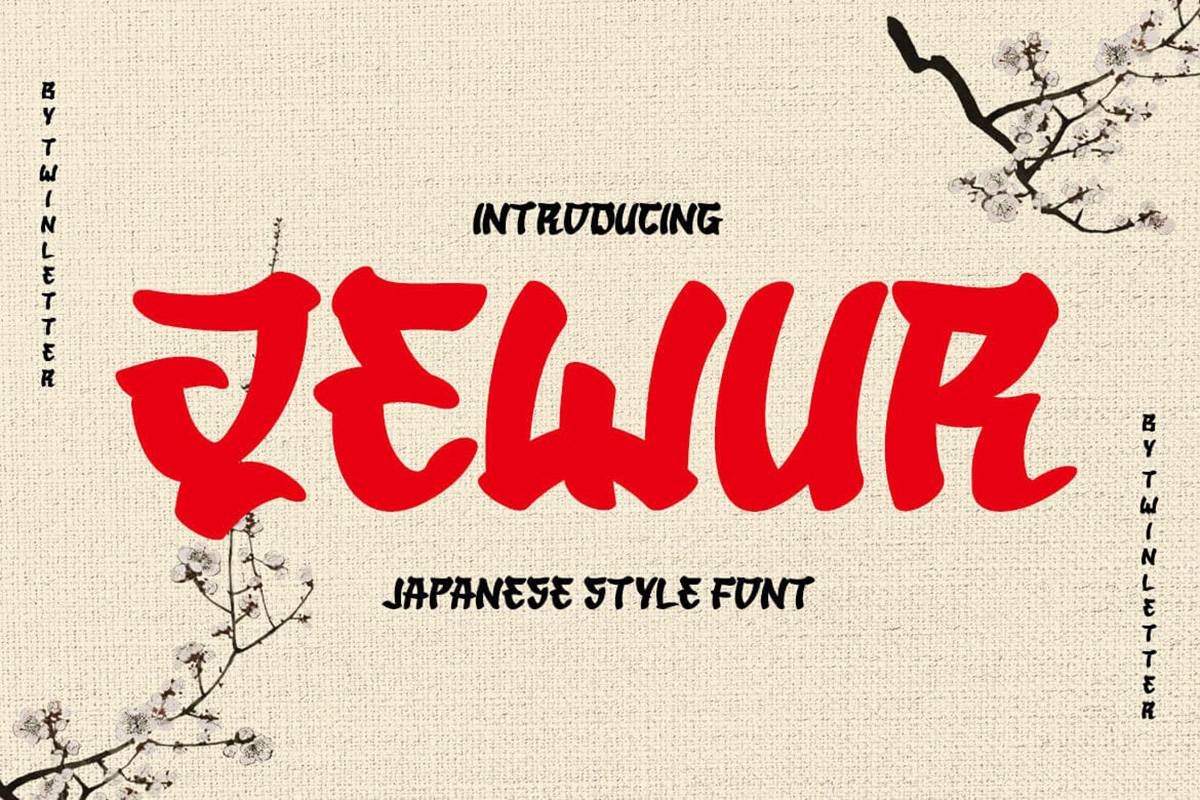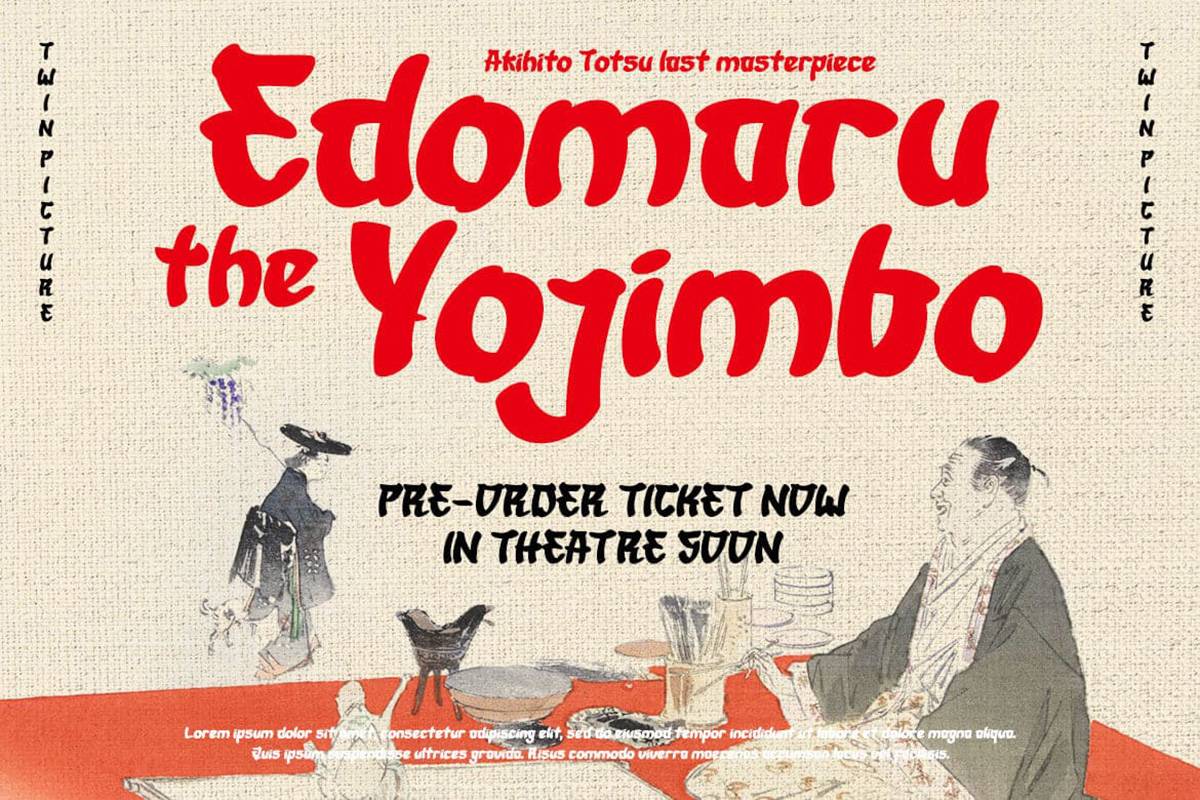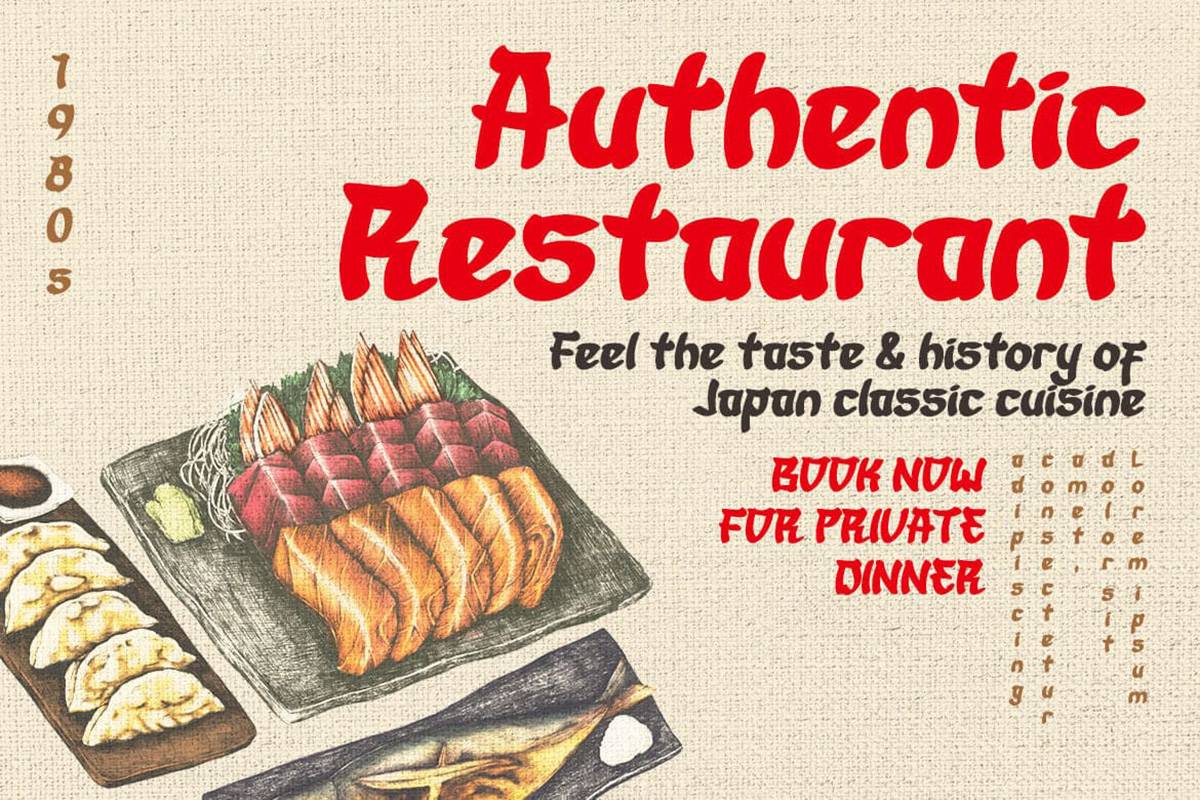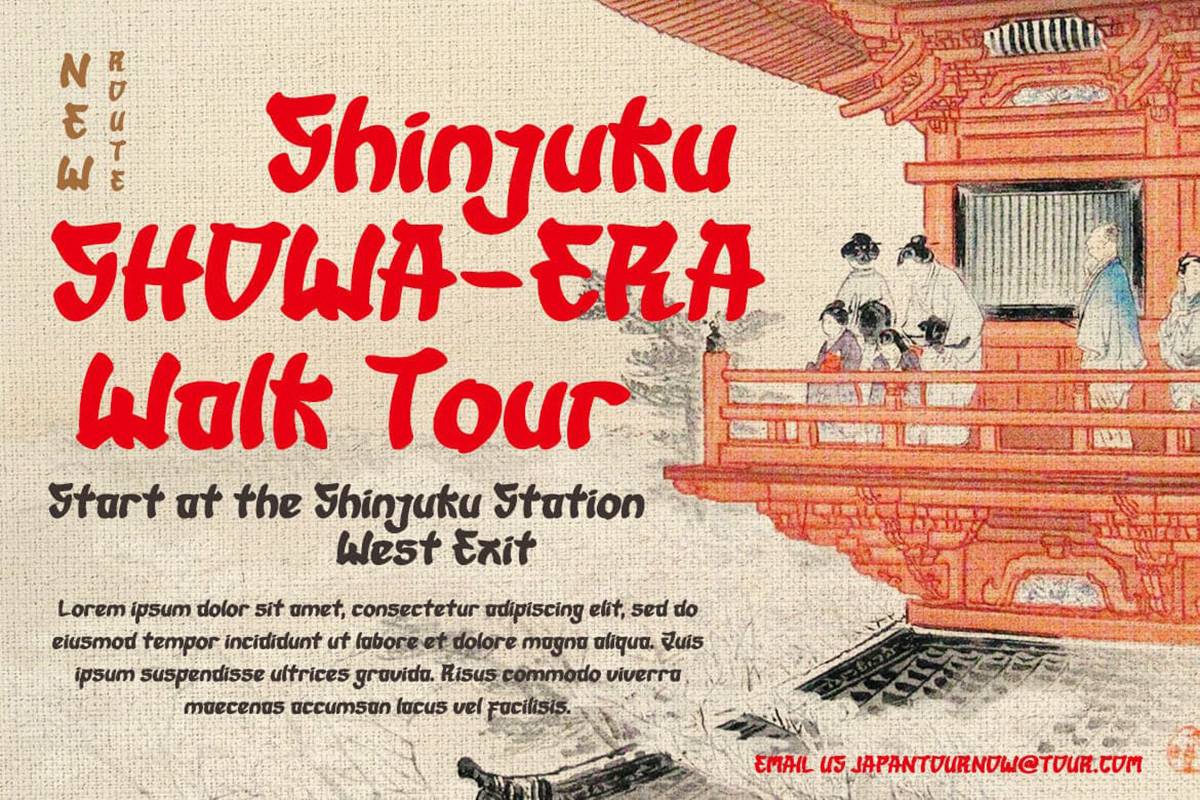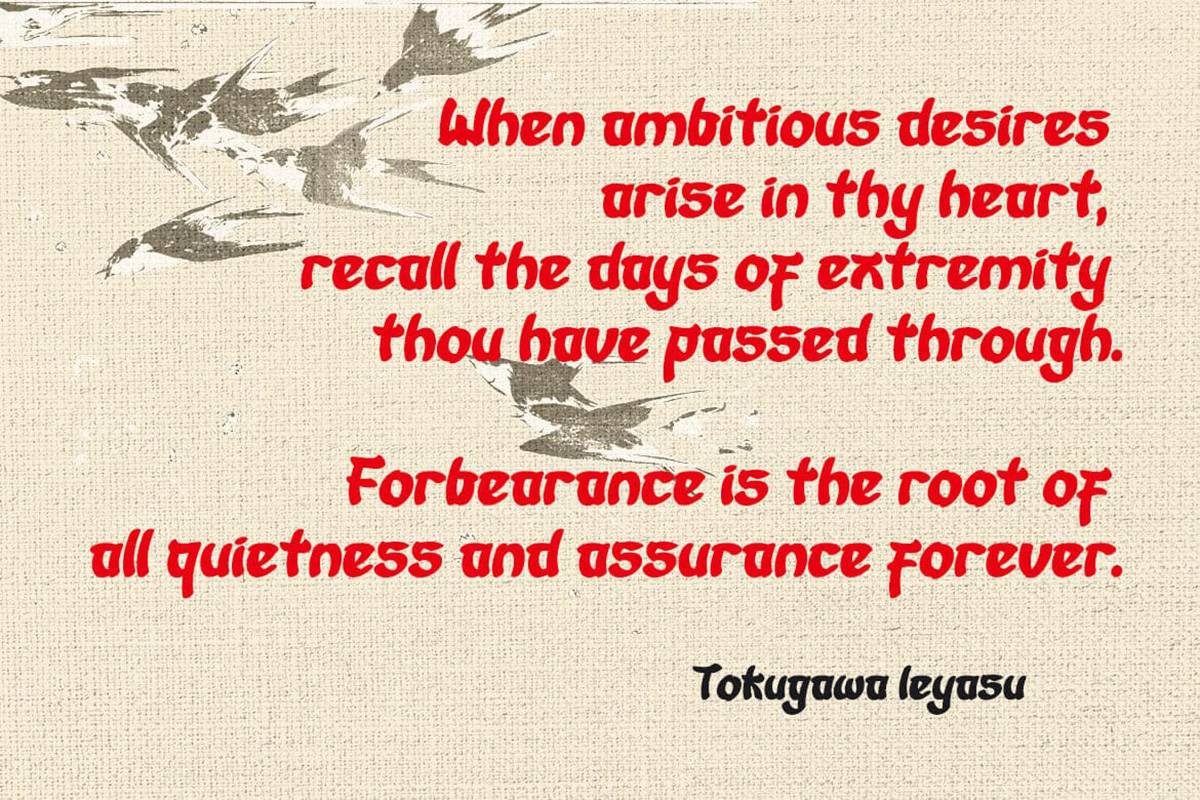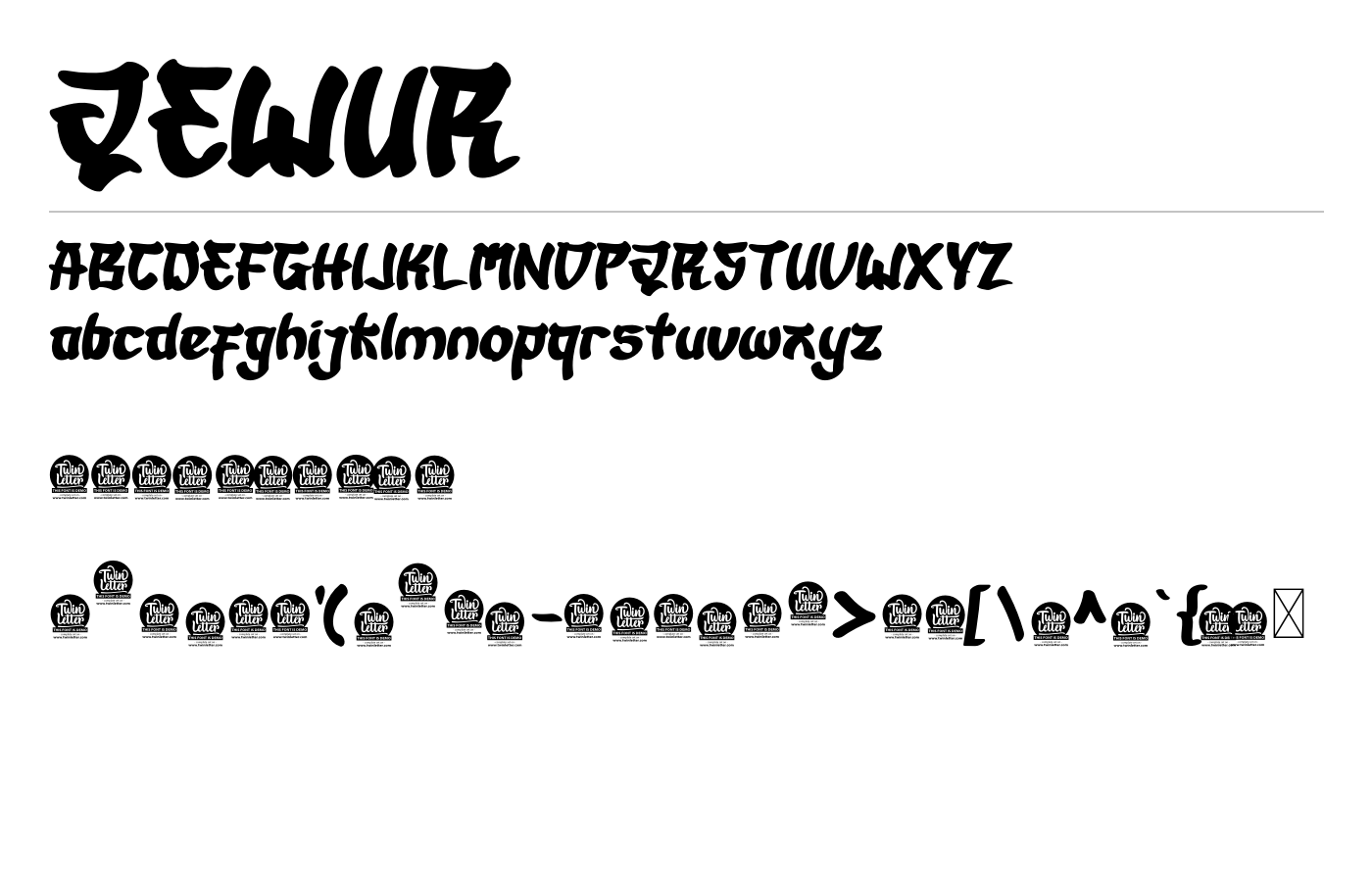
Qewur is a bold and playful script font characterized by its thick, rounded strokes and lively, slightly irregular letterforms that give it a hand-drawn, casual feel. Its unique shapes and strong presence make it perfect for eye-catching logos, posters, and creative packaging where a friendly and dynamic personality is desired. This font works well in display settings to convey a fun and approachable vibe while maintaining good readability.
Qewur Font
About Qewur Font